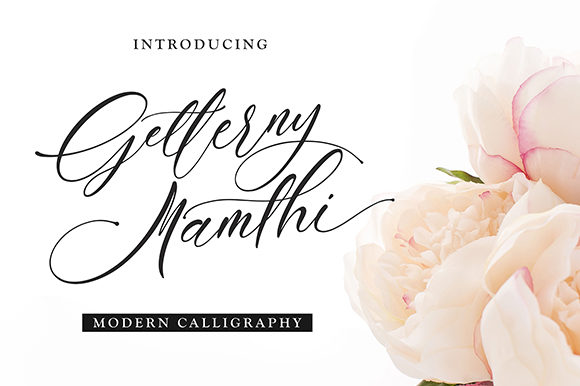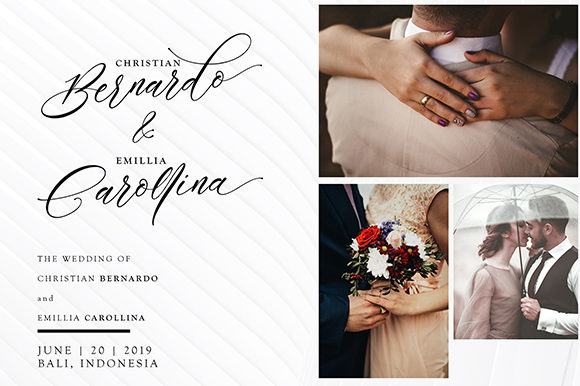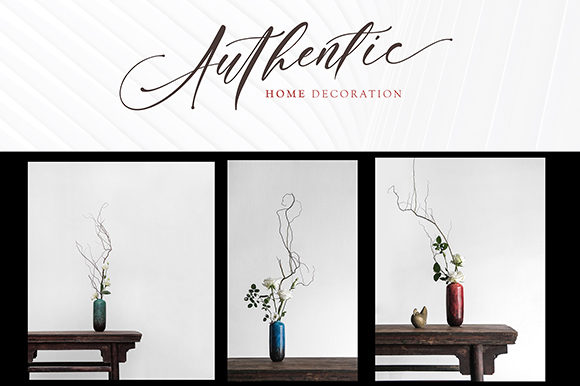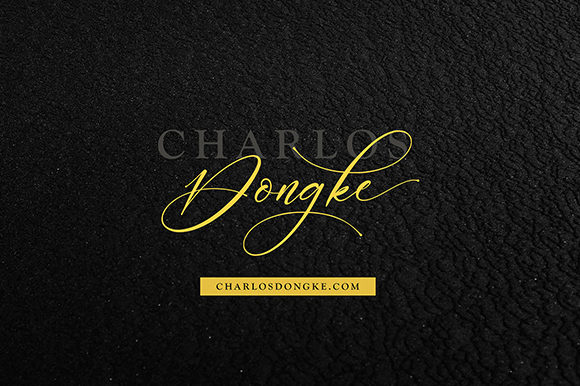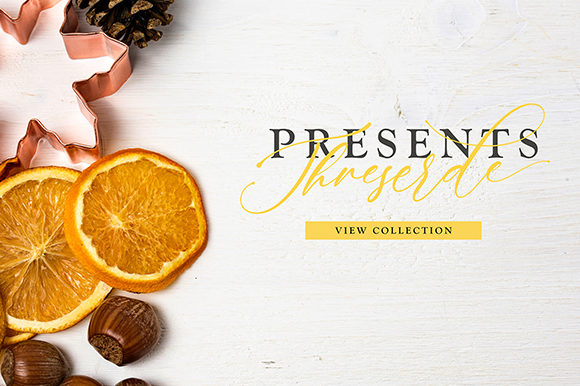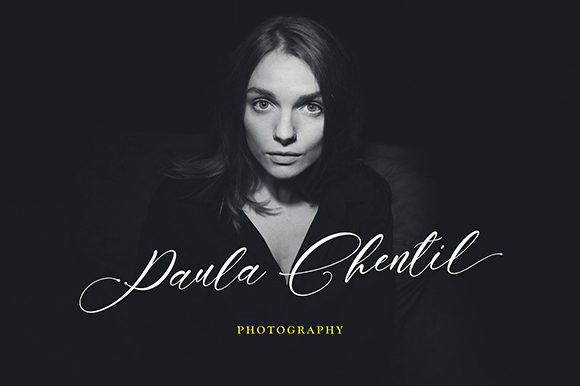
HomeScript FontsGetterny Mamthi Font Script Fonts Getterny Mamthi Font FacebookXPinterestWhatsApp Getterny Mamthi Font Poster 2 Getterny Mamthi Font Poster 3 Getterny Mamthi Font Poster 4 Getterny Mamthi Font Poster 5 Getterny Mamthi Font Poster 6 About Getterny Mamthi Font Getterny Mamthi is a stunning and bold handwritten font with incredible swashes! DOWNLOAD NOW People also explored Sweety Stay at Home Font Santamola Font Gadira Font Goldfinch Font Notche Font Hurst Family Font Anitta Script Font Saphiere Font Chipper Font 353 0 TagsGetterny Mamthi Font Previous articleAnything Better FontNext articlePalm Insting Font LEAVE A REPLY Cancel reply Comment: Please enter your comment! Name:* Please enter your name here Email:* You have entered an incorrect email address! Please enter your email address here Website: Save my name, email, and website in this browser for the next time I comment. Personal Use Free Hollster Personal Use Free Read more about this font Veronica Personal Use Free Read more about this font Crayones Personal Use Free Read more about this font Nugo Sans Personal Use Free Read more about this font BLOG Transform Your Website: Elevate Your Typography with 7 Best Web Font Generators Are you ready to transform your website's typography from ordinary to extraordinary? Great! Today, we're diving into the world of web font generators, which... Best Fonts for YouTube Videos: Make Your Thumbnails Stand Out To increase your work productivity, choose the most readable fonts. Top 7 Google Fonts Alternatives for Faster and Privacy-Friendly Web Design (2025)